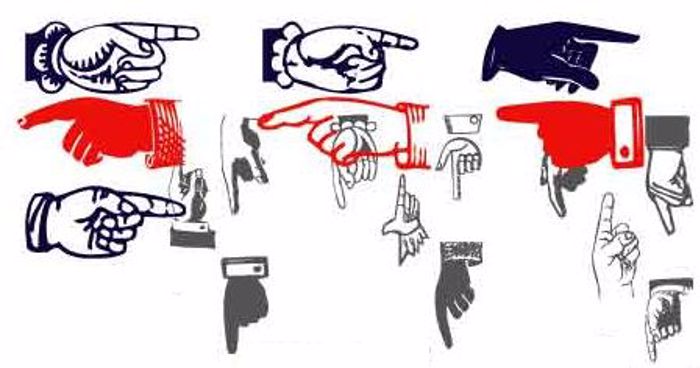
AllHands Font
You never know what direction you might need to point in, and here are over 200 helping hands. Technically, in typography, this is known as a manicule, index, or fist. Other terms include printer's fist, bishop's fist, digit, mutton-fist and pointing hand. Common in early manuscripts, it fell out of favor with the typewriter, but Manfred Klein is bringing it back with a vengeance!